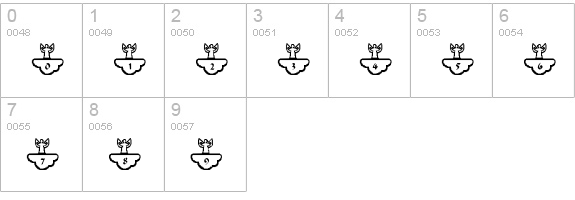
Pearly Gates Font Details
Introducing Pearly Gates font, a captivating typeface that exudes elegance and grace. With its delicate strokes and intricate curves, this font effortlessly captures the essence of sophistication. Designed with meticulous attention to detail, Pearly Gates is perfect for projects that require a touch of refinement. This exquisite font is not only visually stunning but also versatile, suitable for a wide range of design purposes. From wedding invitations to branding materials, Pearly Gates adds a touch of class to any project. Its timeless appeal ensures that it will remain a go-to choice for designers seeking a font that stands the test of time. One of the most remarkable aspects of Pearly Gates is that it is available for free download at FontsMarket.com. Yes, you read that right! This stunning font can be yours without spending a dime. FontsMarket.com is renowned for providing high-quality fonts, and Pearly Gates is no exception. With just a few clicks, you can access this beautiful font and elevate your designs to new heights. Whether you're a professional designer or a creative enthusiast, Pearly Gates offers endless possibilities. Its graceful letterforms and impeccable spacing make it a joy to work with, ensuring that your designs will always make a lasting impression. So why wait? Visit FontsMarket.com today and discover the beauty of Pearly Gates font. Download it freely and unlock a world of elegance and sophistication for your design projects. Let Pearly Gates become your secret weapon, allowing you to create stunning visuals that leave a lasting impression on your audience.